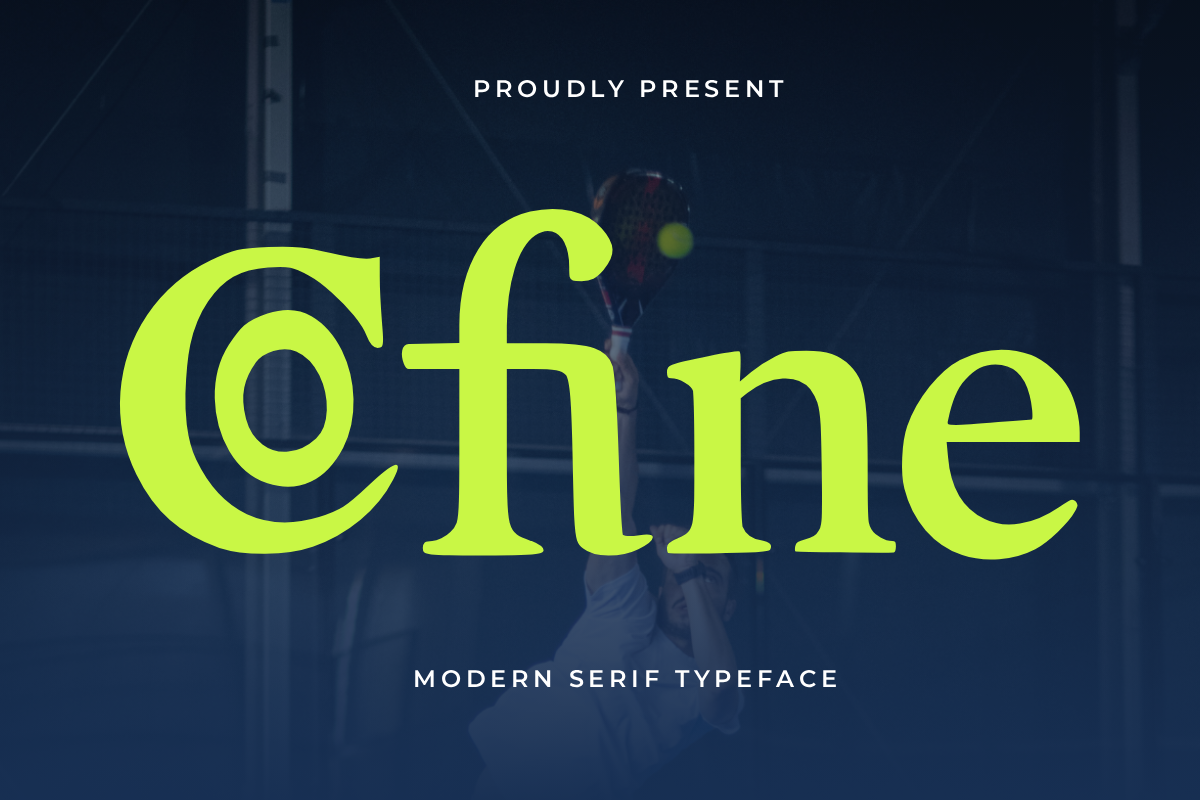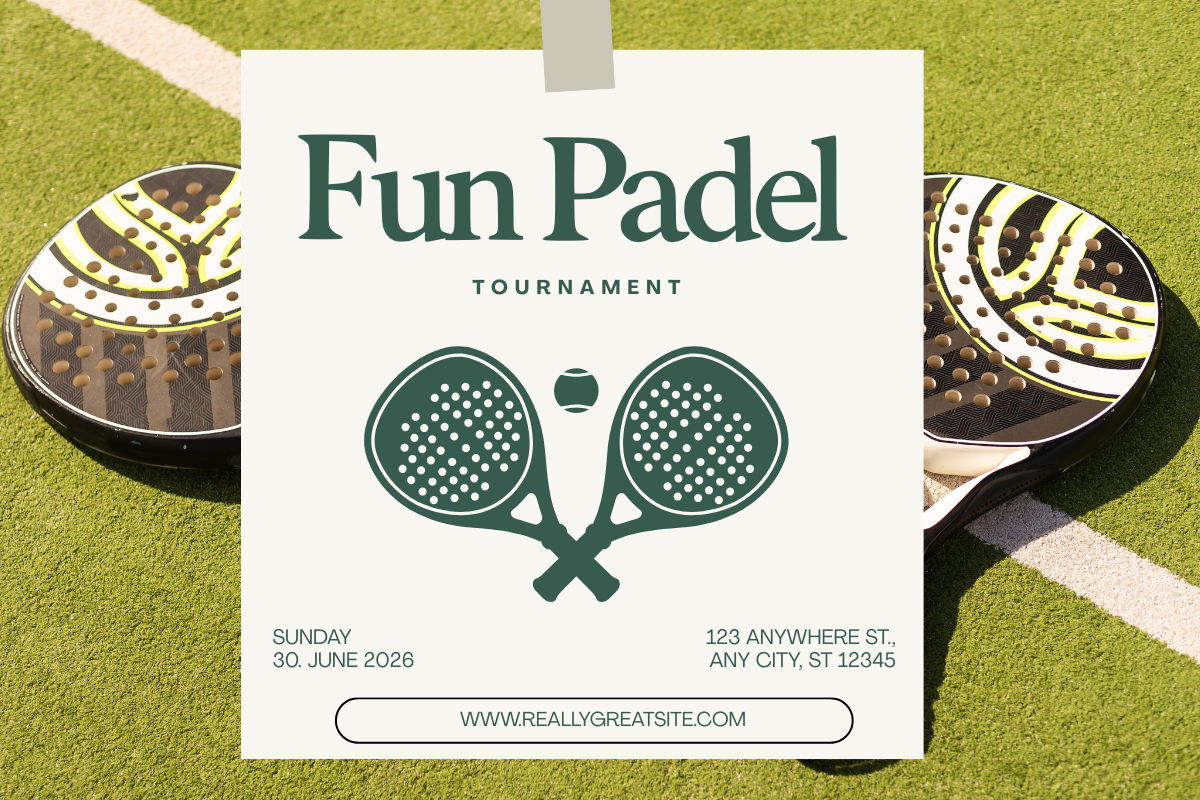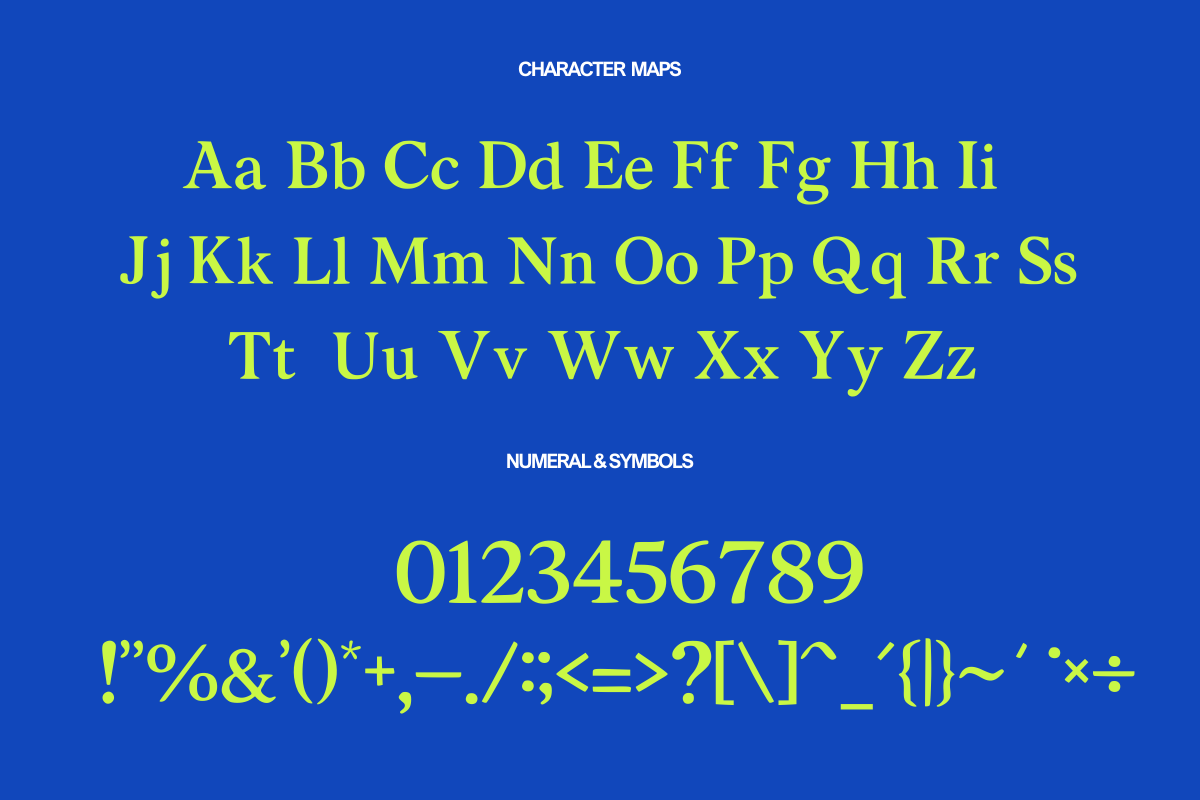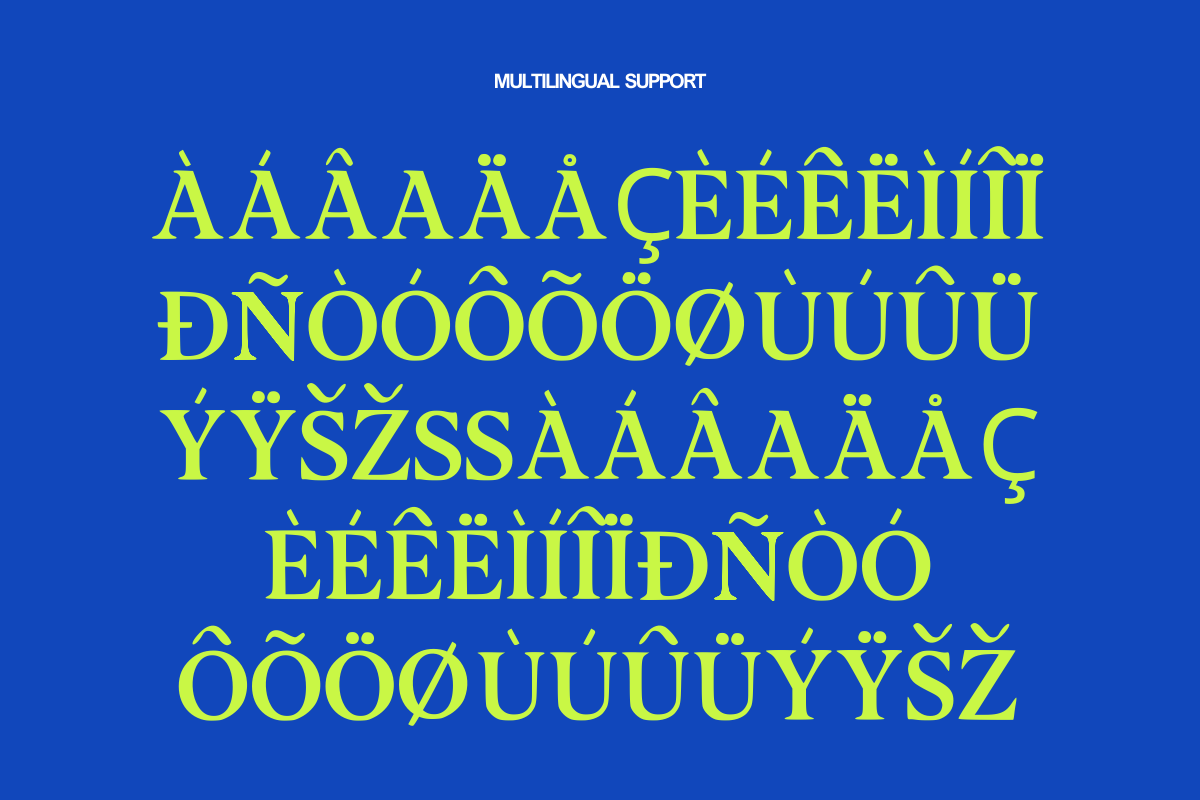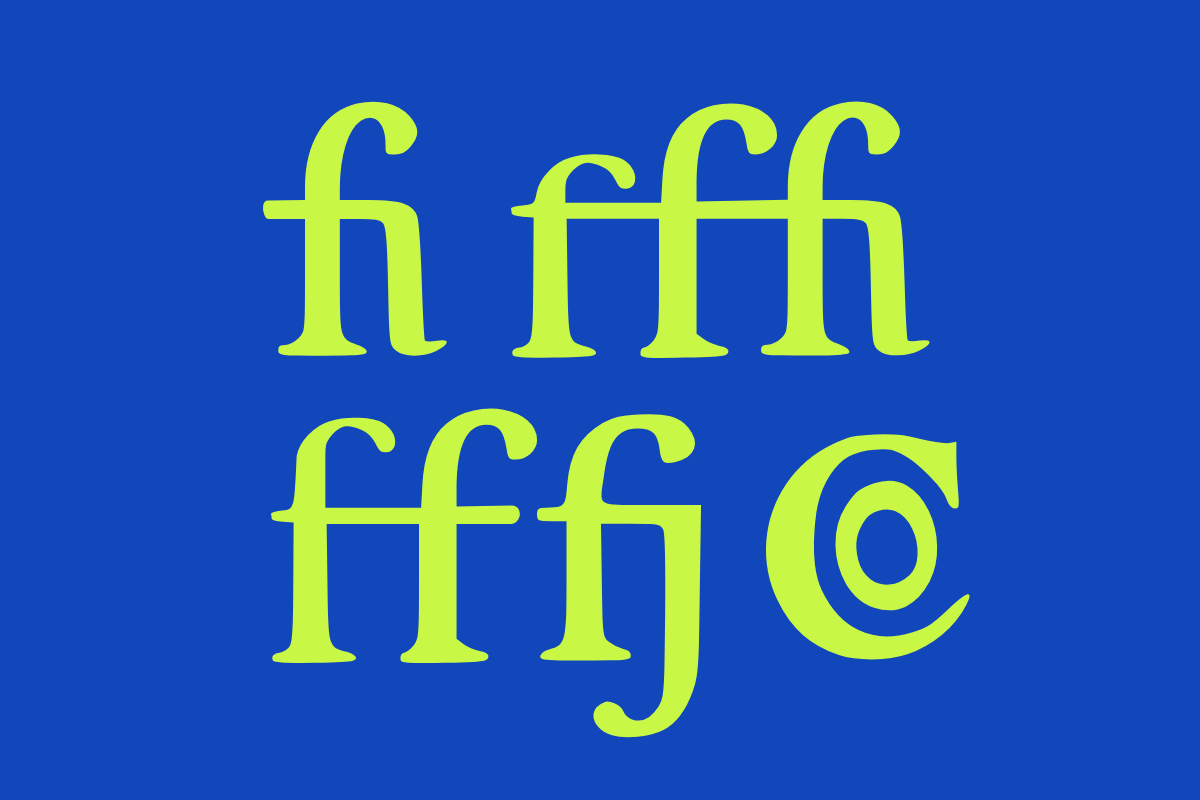
Cofine is a modern serif sport typeface that combines elegance and athletic character. Perfect for sports branding, tennis clubs, premium apparel, editorial design, logos, packaging, and contemporary visual identities. Includes uppercase, lowercase, numerals, symbols, and multilingual support.
• Full Set of Uppercase and Lowercase Letters
• Unique Ligatures & Stylistic Alternates
• Numbers, Punctuation & Symbols
Perfect For:
• Sport & Lifestyle Branding: Padeltennis, golf, luxury sportswear, fitness apparel, and lifestyle magazine titles.
• Luxury & Fashion Branding: High-end apparel labels, perfume packaging, boutique logos, and beauty campaigns.
• Editorial & Print: Magazine headlines, lookbooks, event posters, album covers, and book jackets.
• Digital Media: Modern website headers, social media banners, YouTube thumbnails, and digital campaign assets.
Why Designers & Clients Choose Cfine:
• Unique & Memorable Character: Distinctive alternates and ligatures give your logo or title an instant custom logo feel.
• High Versatility: Looks stunning in large display sizes while retaining high legibility in smaller text blocks.
• Trendy & Future-Proof: Seamlessly merges classic serif elegance with futuristic sporty vibes. Give your brand a competitive edge with Cfine today!